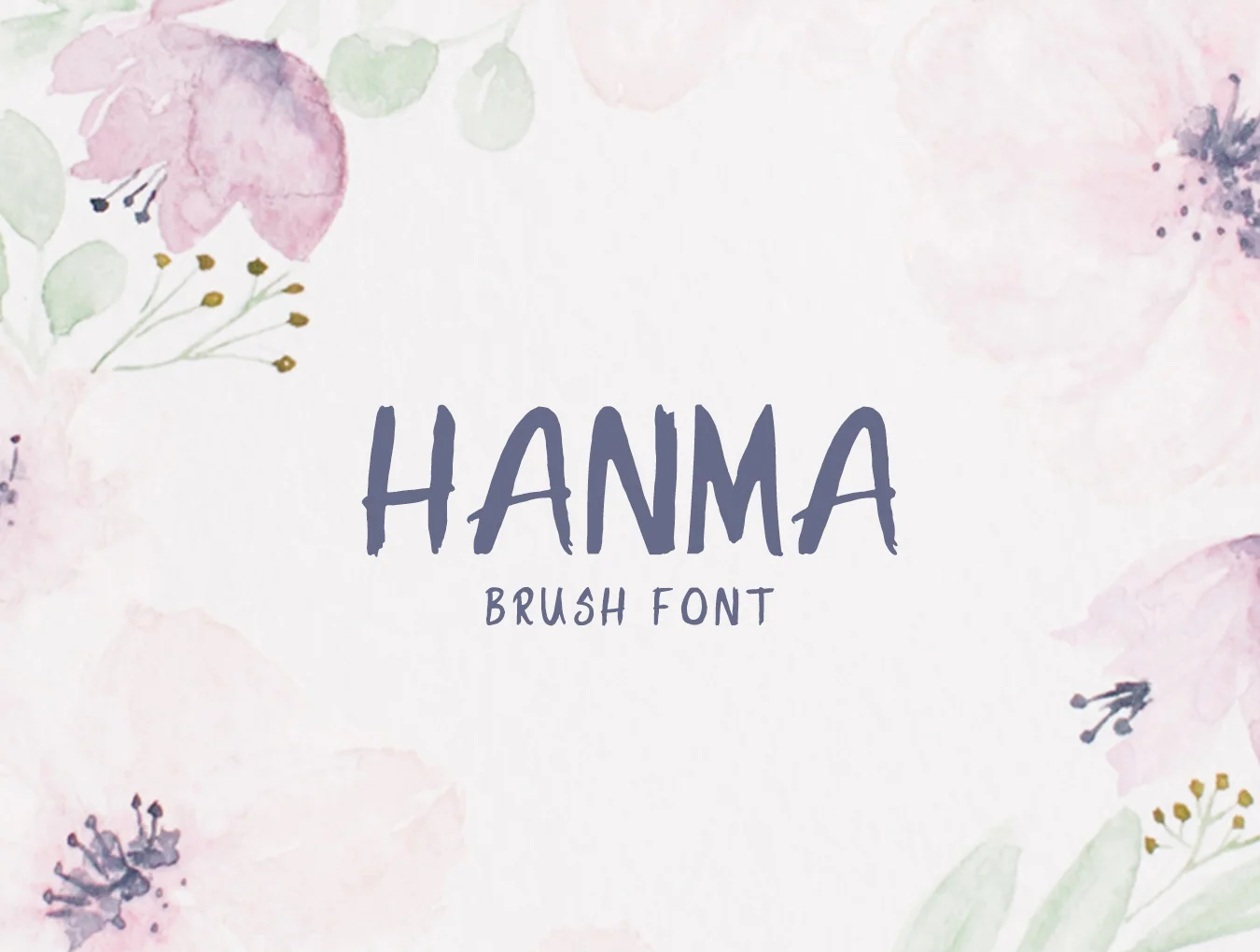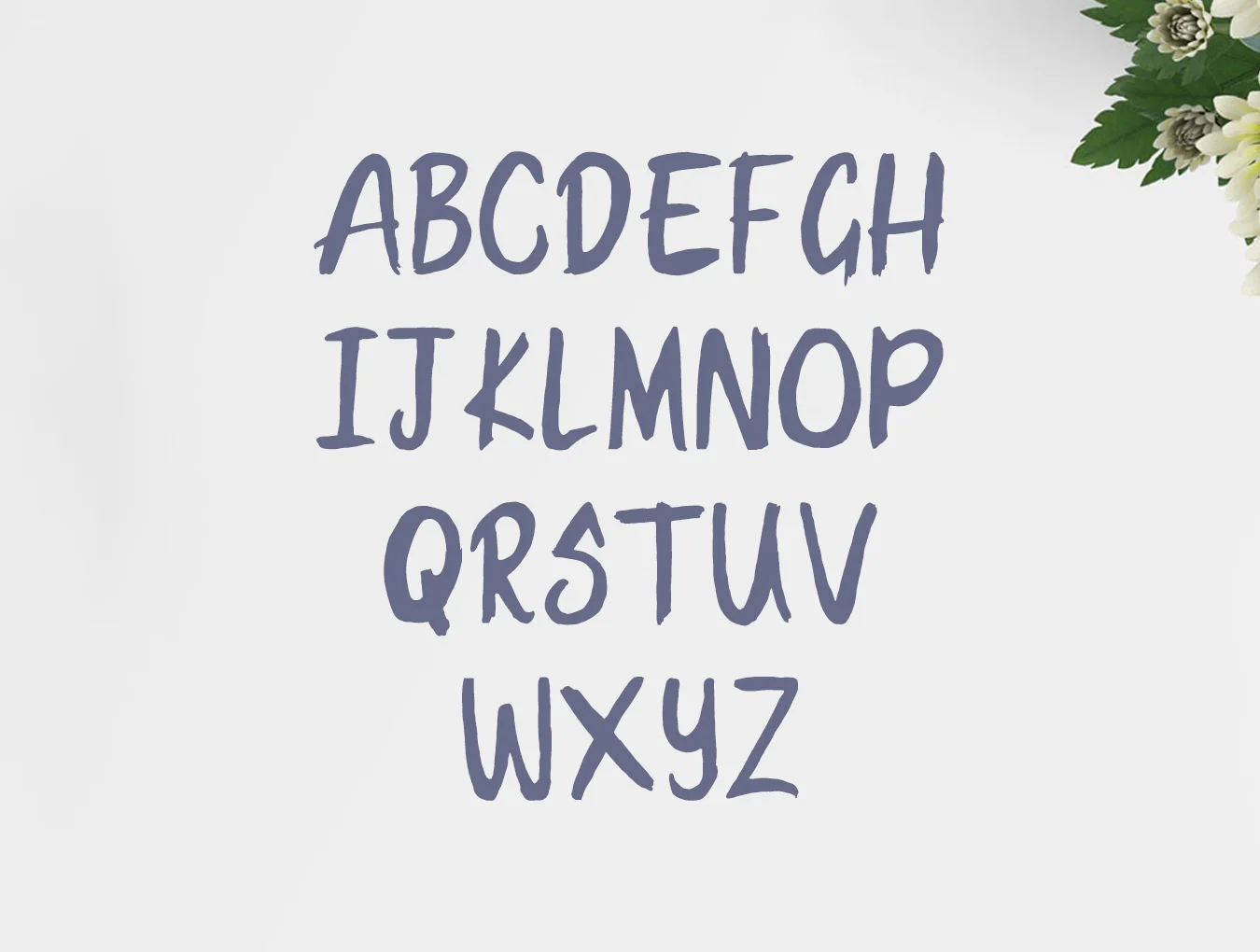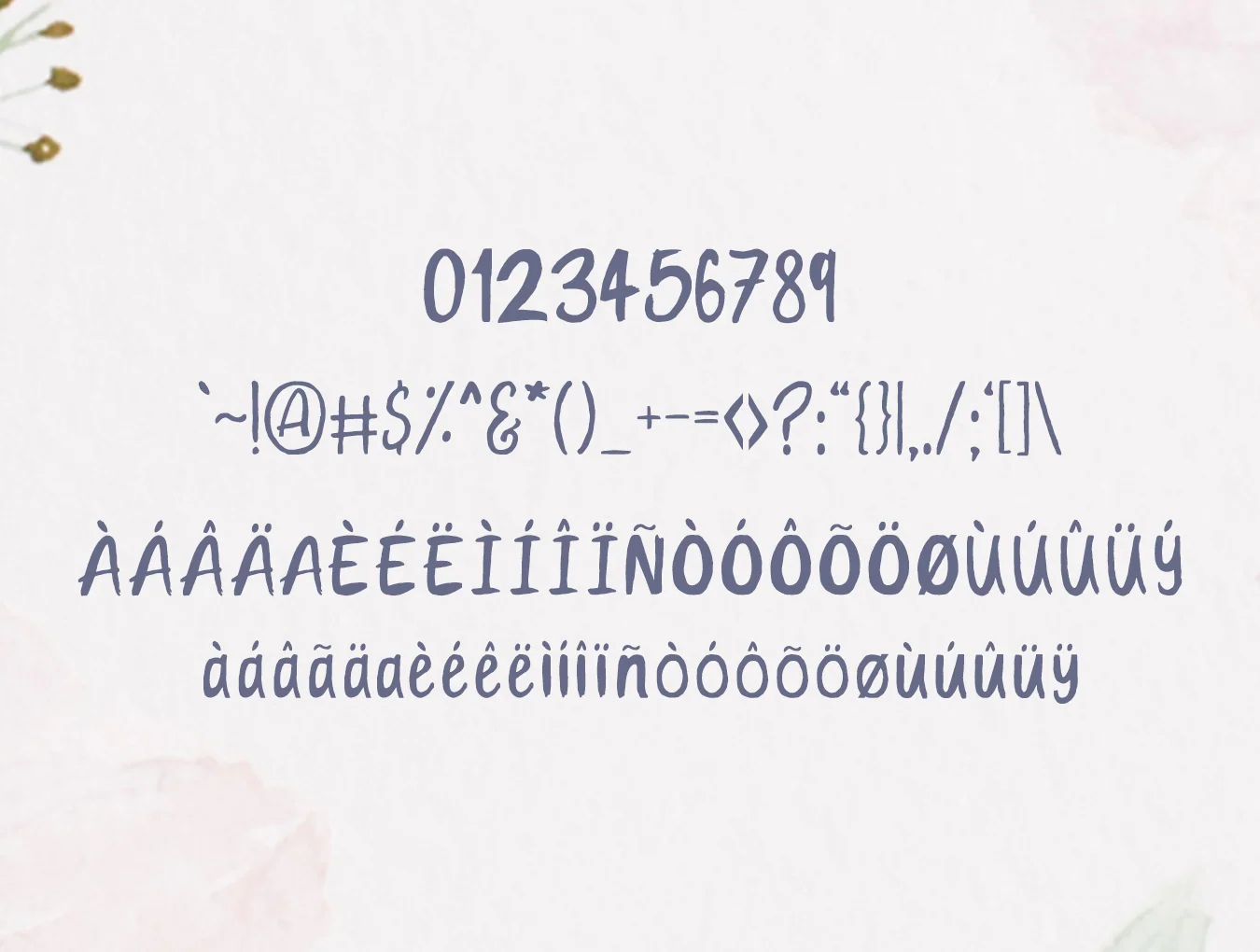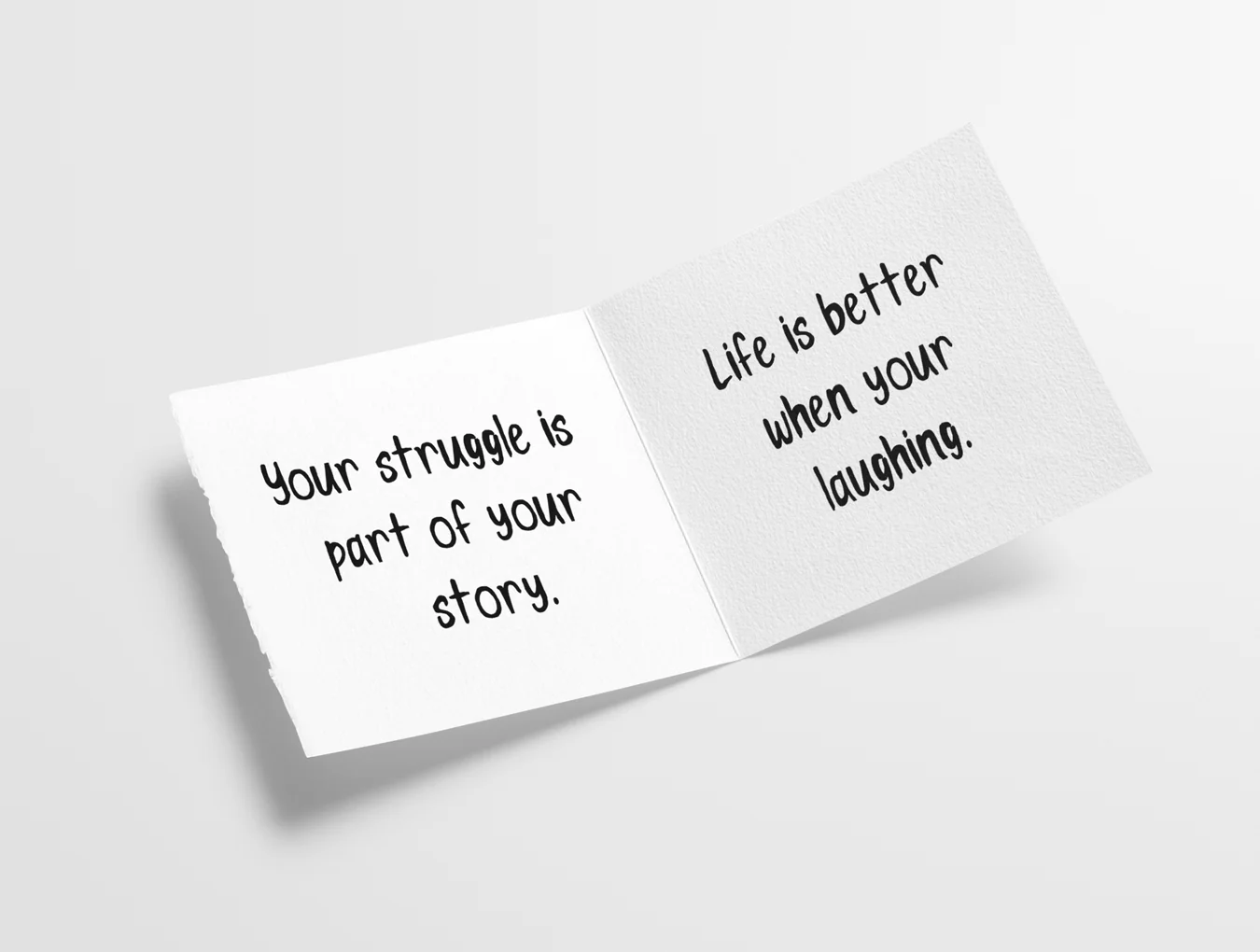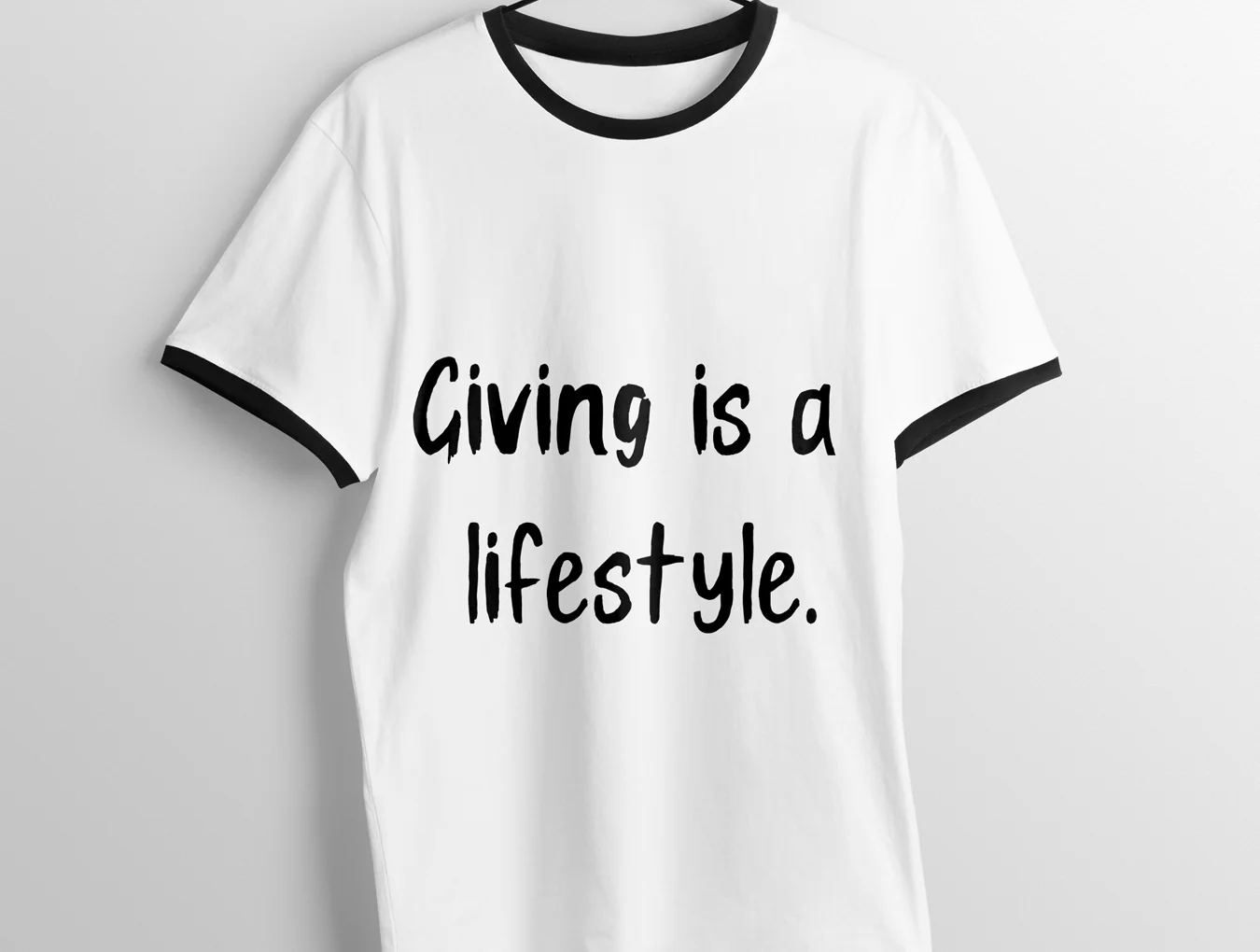
Hanma Brush Font
Fashionable modern brush typeface
Brush-style typeface
156 character glyphs
Standard regular weight
Brush-style typeface
156 character glyphs
Standard regular weight
Hanma is a modern brush font with a distinctive rhythm and stylish look. Its expressive strokes work well for prints, logos, quotes, badges, labels, packaging, blogs, websites, headlines, banners, posters, T-shirts, magazines, promo items, templates, and more.